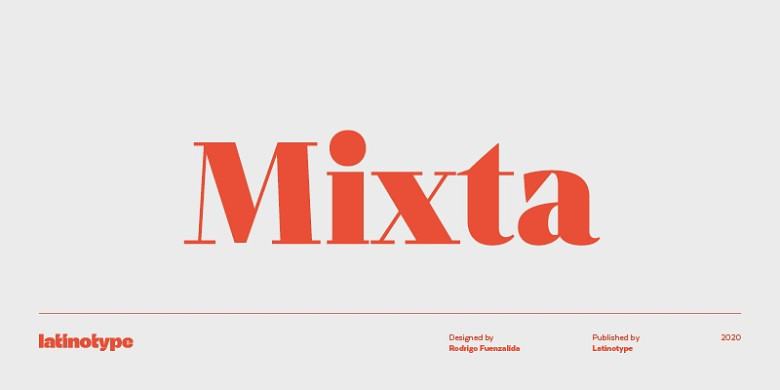
Mixta Font Family
The described Mixta Font Family can be classified as a contemporary serif font that has some distinguishing and quite well-pronounced peculiarities. This font was based on the concept of having a different type of terminals for a font in an effort to ensure the font was unique. Current styles incorporated by its design include Didone and contemporary faces.
There are also straight and italic versions of each of the upright weights, so it is possible to design different letters by occupying the respective counterparts. It is necessary to mention that Mixta contains Cyrillic characters, small capitals, various types of figures and a great number of various variants of letters.
Mixta is shipped with approximately 1,200 characters, all of which enable over 200 Latin-script-based languages. This font was developed for branding as well as for advertising and editorial markets, and particularly for TV and social media.
Mixta Serif Font Family